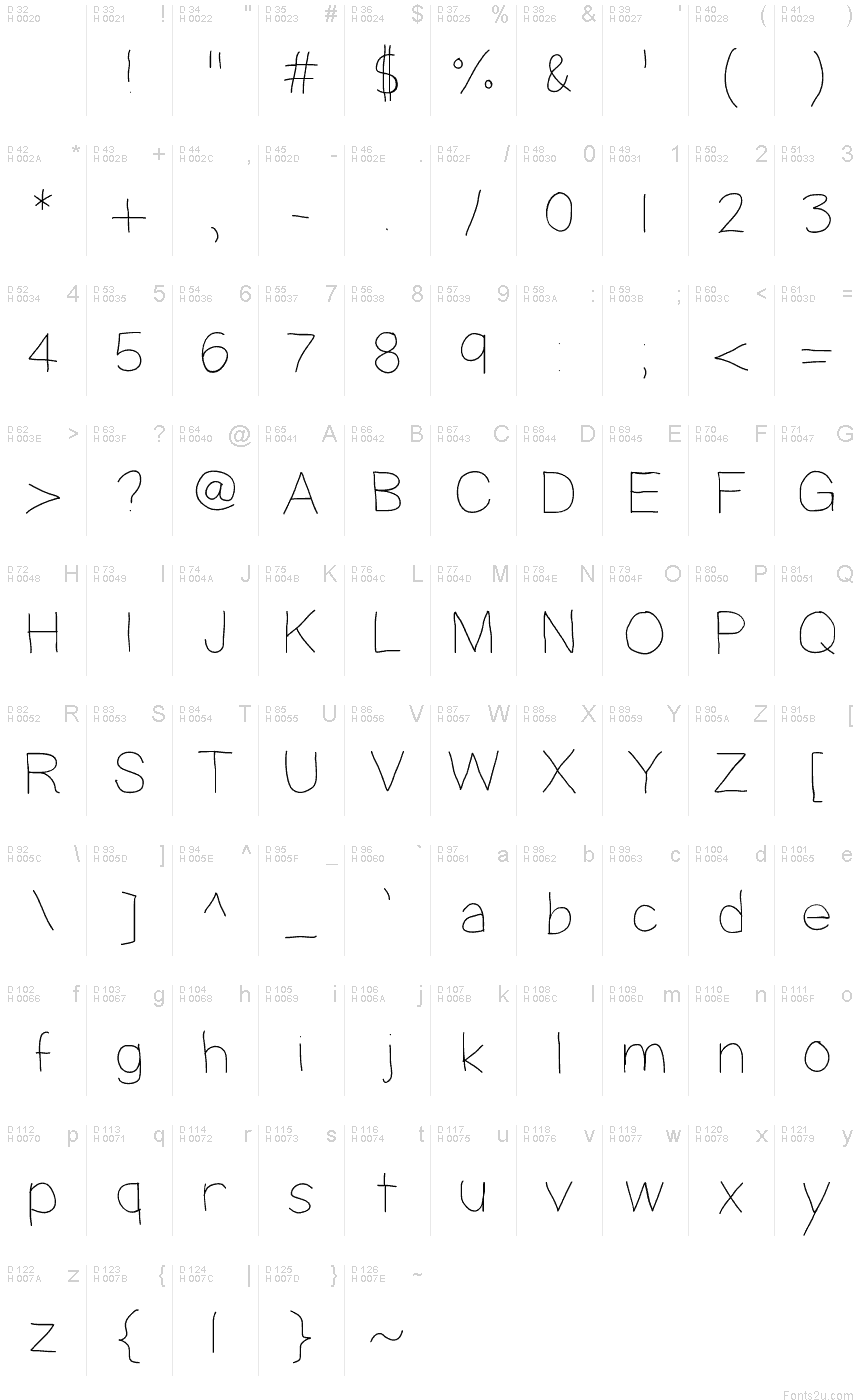
HighYield
Hi! My name is Matt Bruinooge. Thanks for checking out my typeface. I created Kiddish based on how I would attempt to write neatly when I was little.